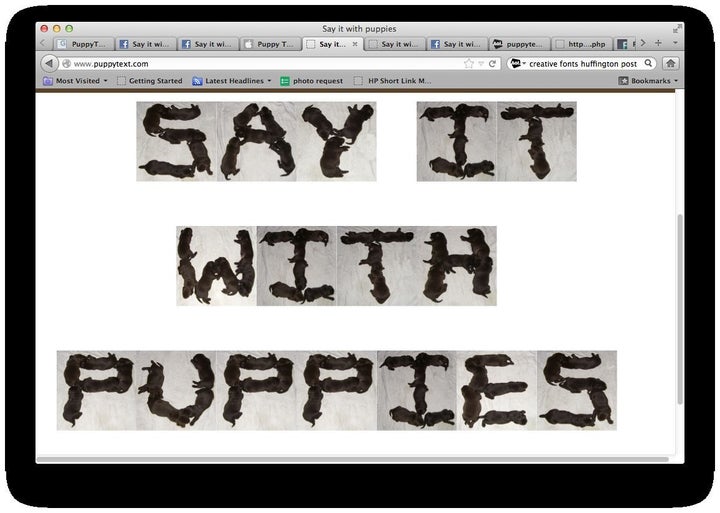
Ever thought, "This message is so cute I wish I could say it in puppies?"
Well, the creators of PuppyText certainly did, as evidenced by their new font made up entirely of chocolate Labs .
It's a simple concept, really. The site's "About" section explains:
There is nothing complex about this site. This site lets you send a message to your friends written in puppies. And everyone loves puppies.
"No puppies were harmed in the making of this site," the page adds.
So far, PuppyText has its own Facebook page, iPhone app and nifty puppy-writing website where visitors can type in any message and see it magically transformed into lines of cuddling pups. (Giggles and exclamations of "awwwww" so far not included.)
While other sites have attempted to create various puppy fonts, this may well be the first font to use real puppies as part of the lettering.
PuppyText is the canine incarnation of a new theme in font creators, where messages are created from objects. The UK-based site MyGalaxies.com, for example, uses a database of actual letter-shaped galaxies to spell out words and phrases for all the astronomy lovers out there. The "font" can be a little hard to make out, but the concept is still pretty cool.